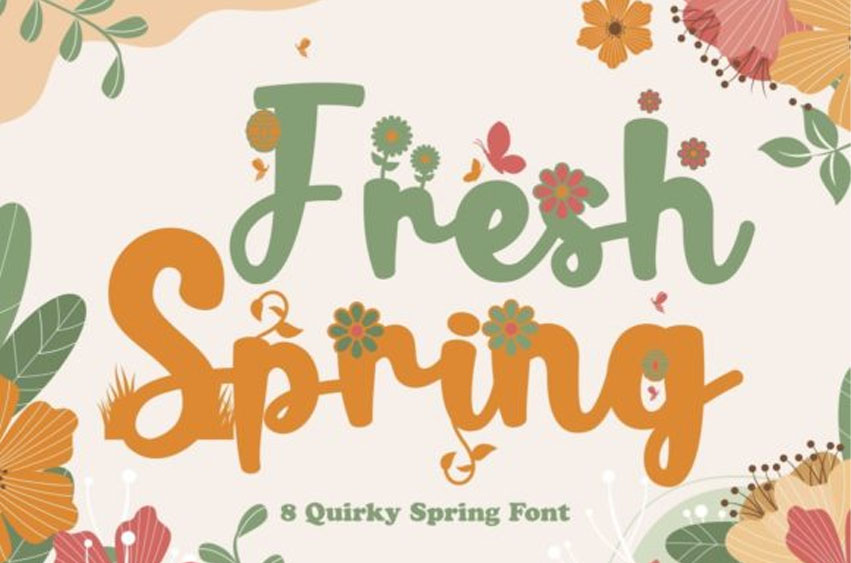
Fresh Spring Font
Fresh Spring Font is a trendy and chic display font.
Whatever the topic, this font will be a wonderful asset to your font library, as it has the potential to enhance any creation.